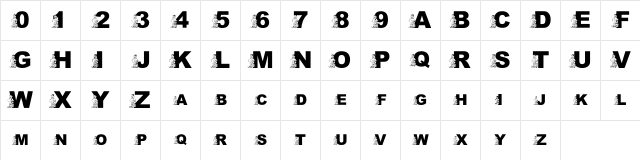
pf_injury_sports Regular Free Font
pf_injury_sports Regular
Design Context for pf_injury_sports
pf_injury_sports brings high-energy athletic personality to the page - its confident, muscular forms are built for impact.
Pro Tip: Use pf_injury_sports in all-caps headlines where its athletic energy can fully express itself. Pair with a solid, simple sans for supporting text.